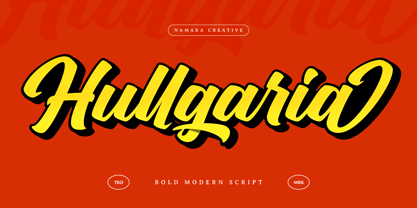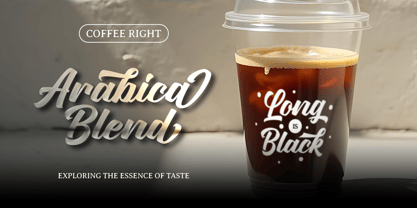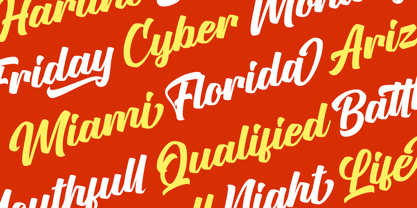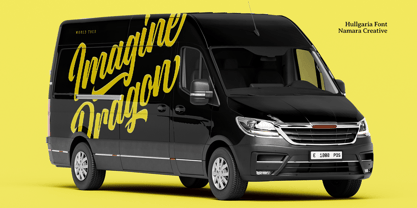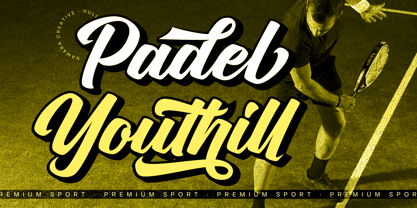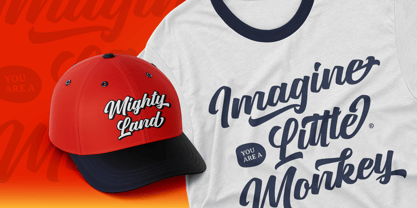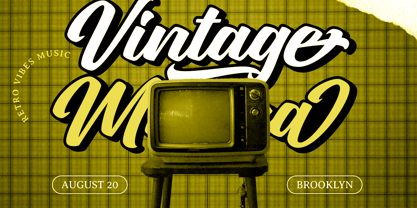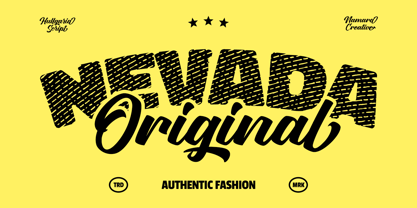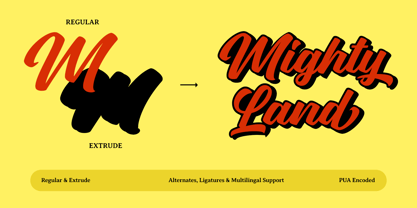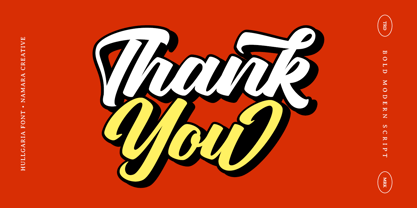
Hullgaria
by Namara Creative Studio
The Hullgaria Font Family was designed by Eep Apringga and published by Namara Creative Studio. Hullgaria contains 2 styles and family package options. More about this family
Hullgaria is a bold modern script font that blends retro charm with a clean, confident brush style. Designed for standout visuals, it’s perfect for logos, branding, sports merch, apparel, posters, and packaging. With ligatures, alternates, and multilingual support, Hullgaria gives every project a dynamic and handcrafted look. Whether you’re creating vintage-inspired logos or bold display headlines, this font brings personality, energy, and style to your design. Features : - Uppercase & Lowercase - Alternates, Ligatures & Multilingual Support Ideal for : - Logo Design - Branding - Merchandise - Posters and Signage - Social Media Make your mark with Hullgaria Script, Whether you’re telling a love story or building a lifestyle brand, Hullgaria gives your design a handwritten, personalized touch that commands attention and expresses emotion.